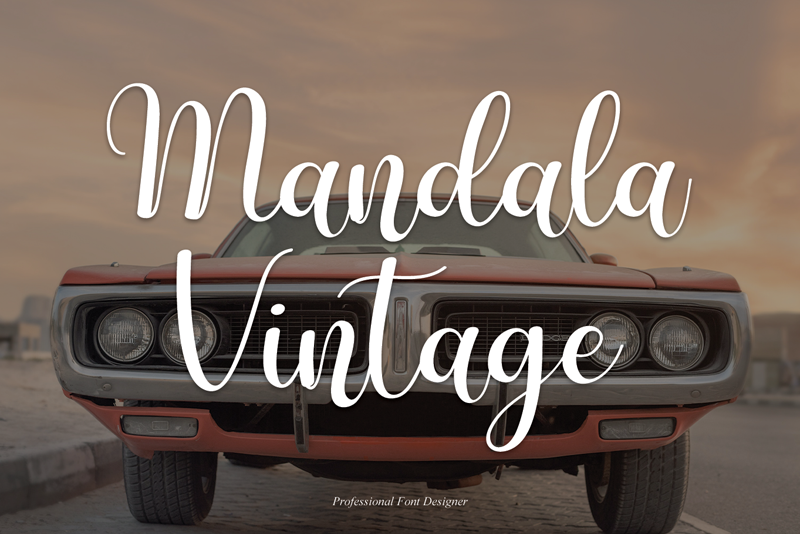
Preview and download Mandala Vintage Font. Created by Erik Luluk in Script Calligraphy styles with Free for personal use license.
Mandala Vintage is an exquisite handwritten font, masterfully designed to become a true favorite. It maintains its classy calligraphic influences while feeling contemporary and fresh. Fall in love with it and bring your projects to the highest levels! Attention : Mandala Vintage handwriting Font is prohibited to use this font for commercial purposes or for profit without the permission of the author/admin, without being known to use this font without permission, will be subject to sanctions 5x the specified price. This font is used only for demos (Demo license) If you want to use this font for commercial use please contact email: erikluluk0@gmail.com or click the link below: https://www.creativefabrica.com/product/mandala-vintage-59/ref/745146/ If you want to see more other fonts, please click:https://www.creativefabrica.com/designer/erik-studio/ref/745146/ Any donations are very appreciated. Paypal account for donation: https://paypal.me/eriksupriyant thanks. |